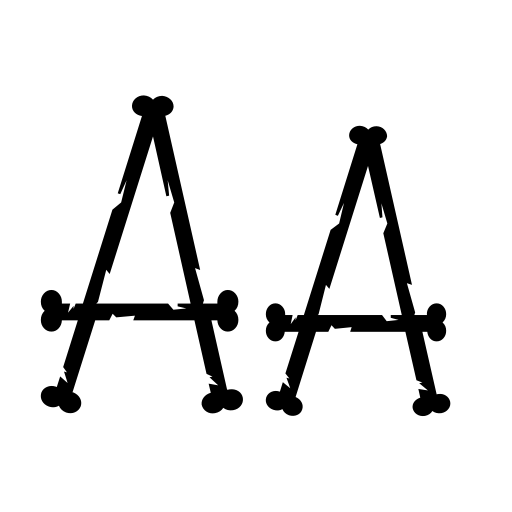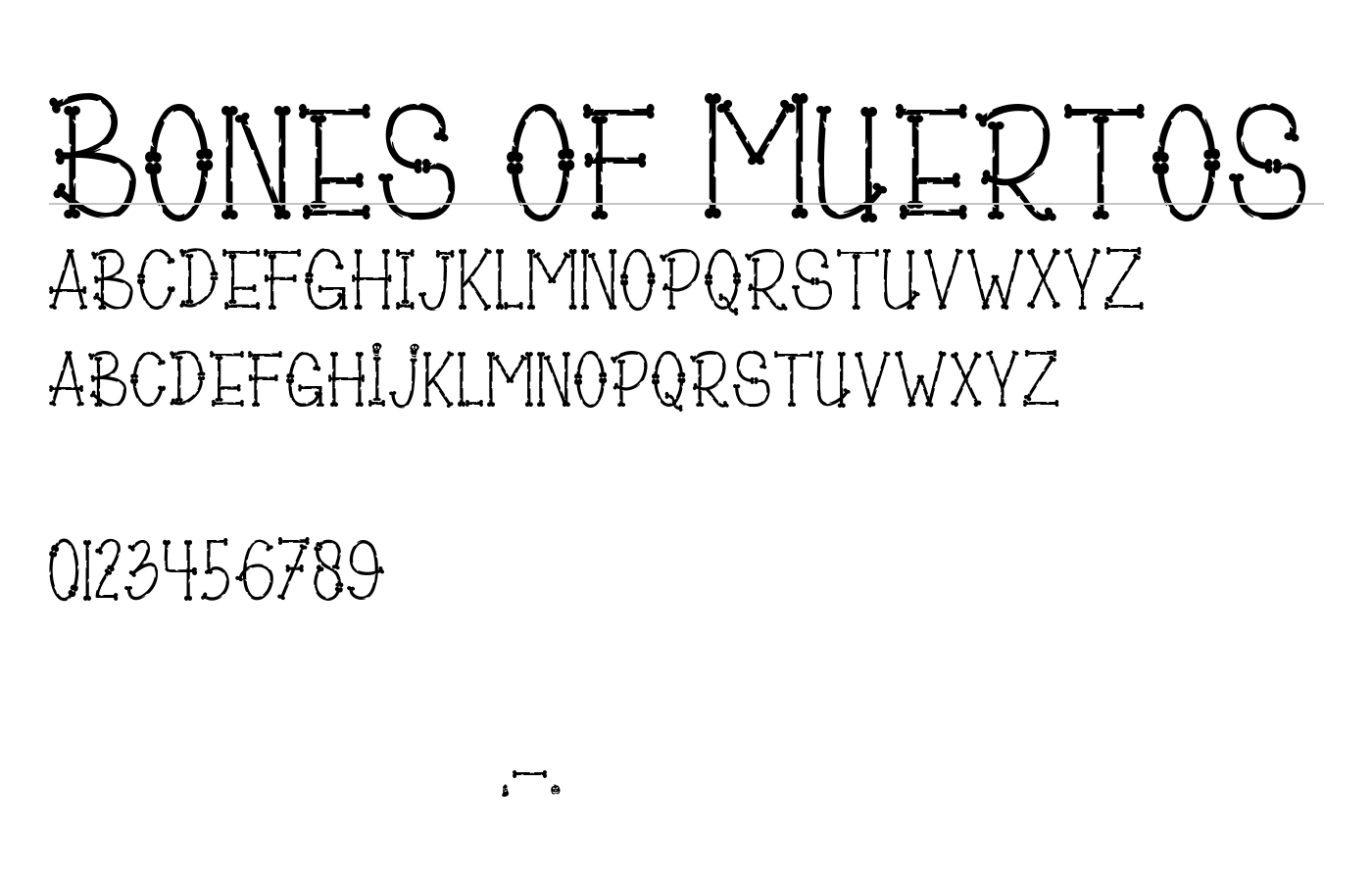
Bones of Muertos is a playful, decorative sans serif font that mimics the look of small bones connected to form each letter, giving it a whimsical yet spooky vibe. Its narrow, tall letterforms with uniform stroke width and quirky details make it ideal for Halloween or Día de los Muertos themed designs, adding a fun and festive touch. This font works best for headlines, posters, and event branding where a distinctive, themed display typeface is needed.
Bones of Muertos Font
About Bones of Muertos Font
| Font family | Bones of Muertos Font |
| Designer | Andri Ardianto + Madatype Studio |